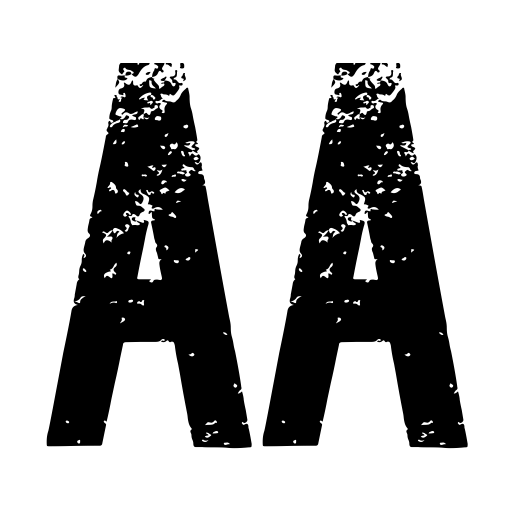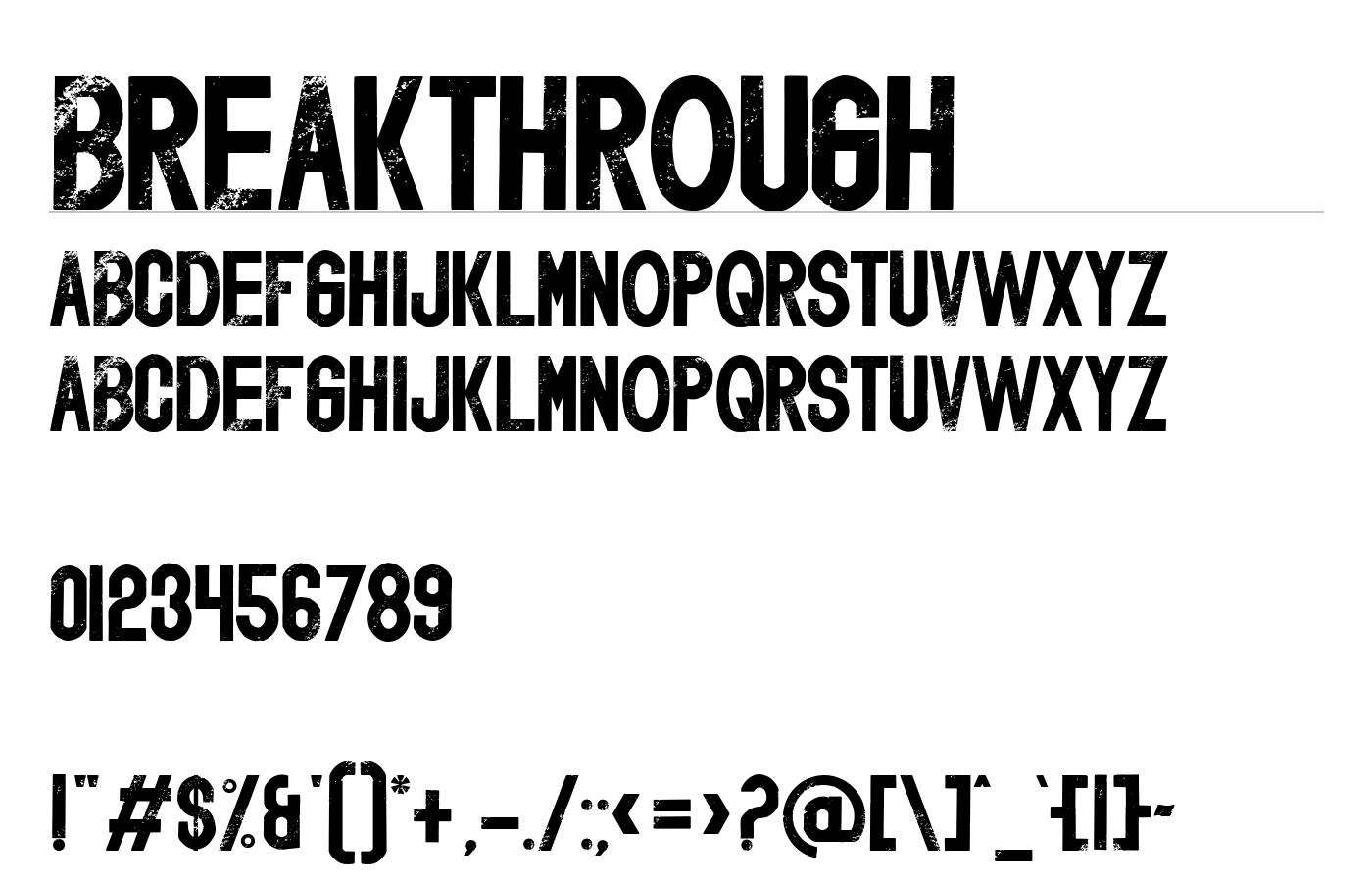
Breakthrough Font is a bold, condensed sans serif with a distressed texture that gives it a rugged, urban feel. Its strong, blocky letterforms and high x-height create a commanding presence, making it ideal for attention-grabbing headlines, posters, and branding where a gritty, bold personality is desired. This font works well for creative projects that seek to communicate strength, energy, and a dynamic edge.
Breakthrough Font
About Breakthrough Font
| Font family | Breakthrough Font |
| Designer | Muhamad Fikry Nuralif |